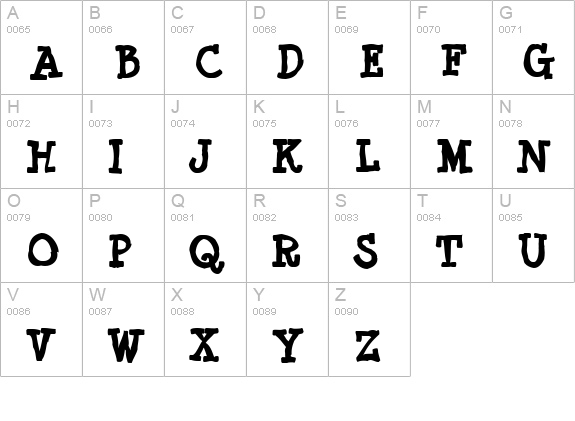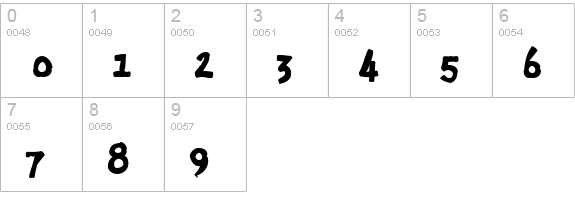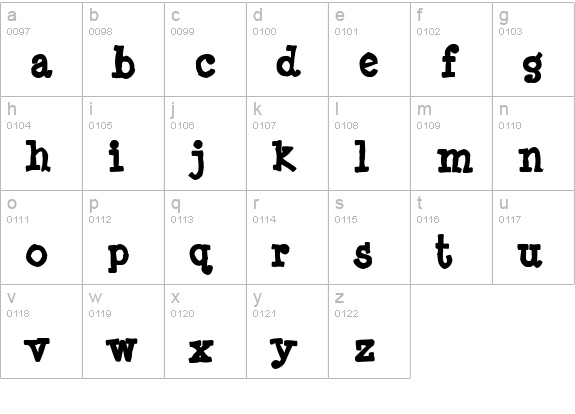
Minya Nouvelle Ink font is a unique and artistic typeface that exudes a sense of creativity and originality. Its hand-drawn appearance gives it a charming and authentic feel, making it perfect for a wide range of design projects. The irregular strokes and imperfect edges add a touch of whimsy and personality to any text. This font is freely available to download at FontsMarket.com, making it easily accessible to designers, creatives, and enthusiasts alike. Whether you're working on a branding project, creating social media graphics, or designing a poster, Minya Nouvelle Ink font will make your text stand out and leave a lasting impression. Embrace the playful and organic vibe of Minya Nouvelle Ink font and add a touch of flair to your designs. Let your creativity flow with this versatile and eye-catching typeface that is sure to make a statement wherever it's used.